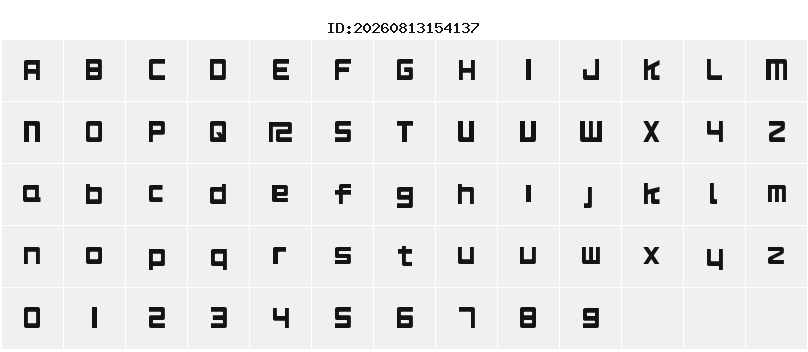
About RS125 Original.ttf
RS125 Original.ttf is a modern, elegant sans-serif font designed for ultimate readability and visual harmony. Perfect for branding, headlines, web design, and print materials.